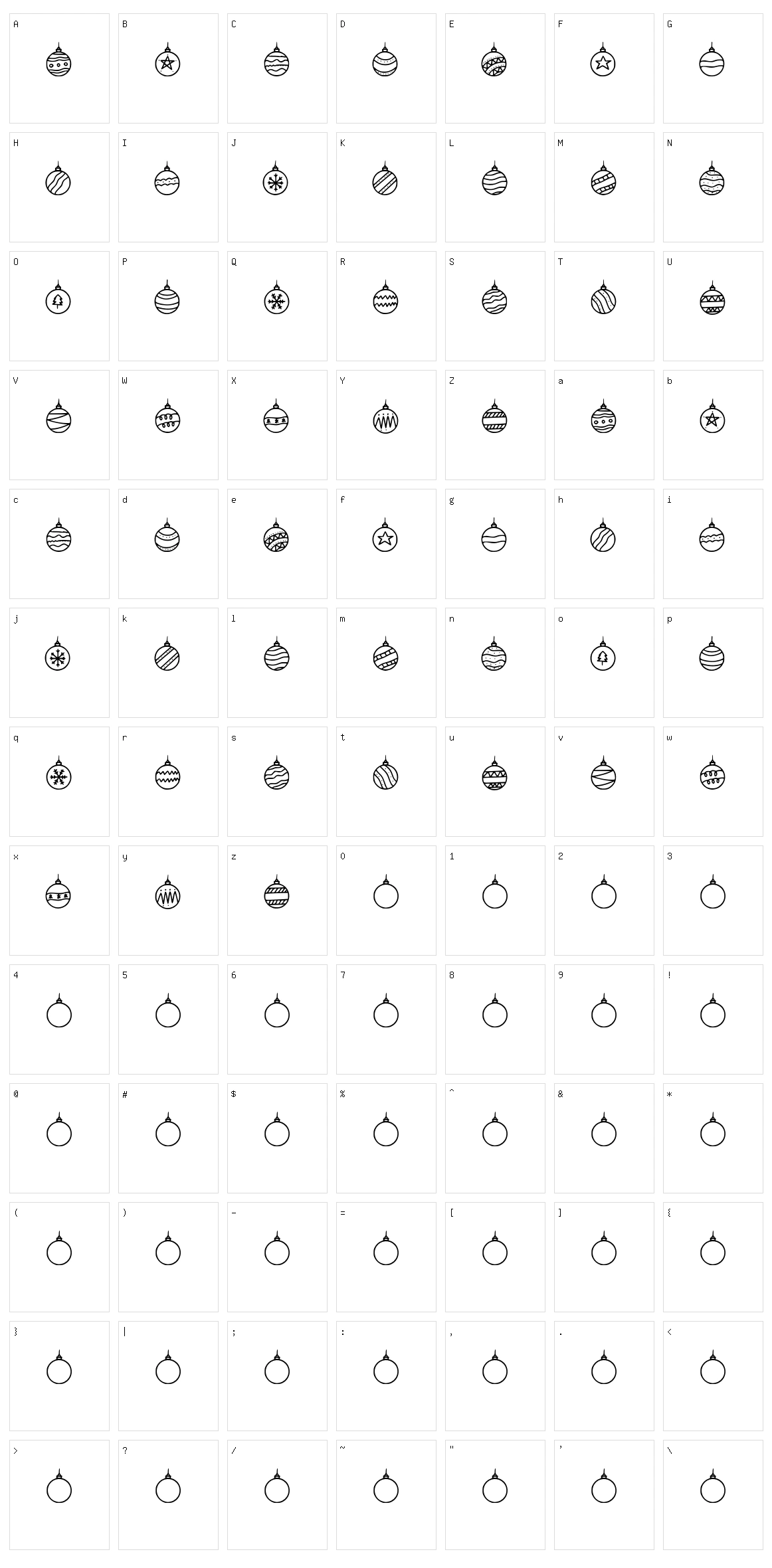
The free font Decorative Lights is carefully designed by Muhammad Yafinuha, showcasing a thoughtful balance of creativity and usability and falls under the Christmas font style. When you download the ZIP file, it contains only 317.01 KB of font files, making it lightweight and quick to download. Please review the license details below to understand permitted usage and distribution rights. If license information is not available, we recommend using this font for personal projects only or contacting the author directly for commercial usage permissions.